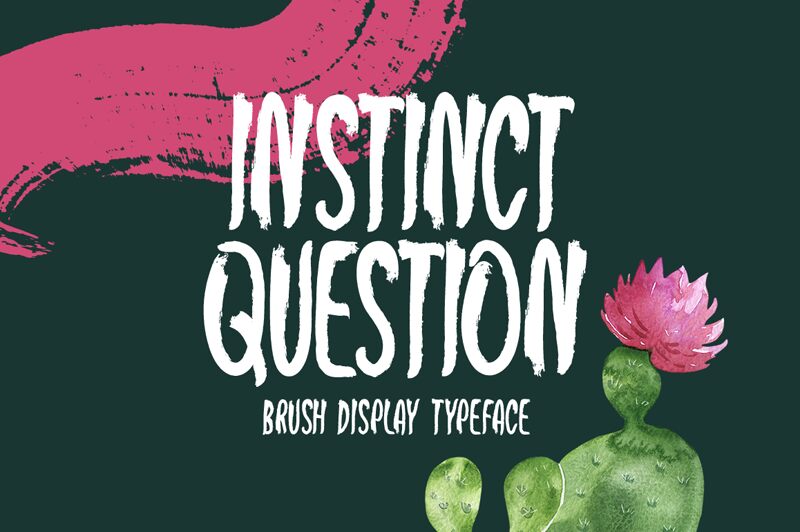
Instinct Question
Instinct Question, designed by Md Shohail Bhuian, is a captivating brush font that exudes creativity and spontaneity. With its unique strokes and expressive curves, this font adds a touch of playfulness to any project.
Its extra-condensed width allows for maximum impact in minimal space, making it ideal for eye-catching headlines and attention-grabbing logos. Whether you're designing posters for a music festival or creating social media graphics for a trendy fashion brand, Instinct Question is the perfect choice to infuse your projects with an artistic flair.